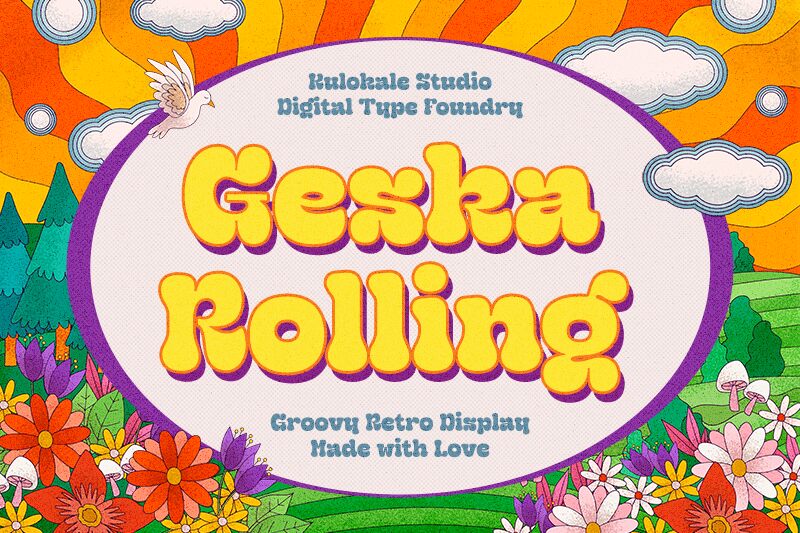
Geska Rolling, created by Kulokale Studio, is a groovy retro display font with an extra-bold weight and semi-expanded width. Its playful curves and vintage vibe make it perfect for projects that require a touch of nostalgia and fun.
Use Geska Rolling to bring a 70s feel to your branding, posters, album covers, or social media graphics. Stand out from the crowd with this eye-catching font that captures the essence of a bygone era.
Let Geska Rolling transport your designs back in time with its boldness and groovy charm.
Kulokale Studio
Geska Rolling